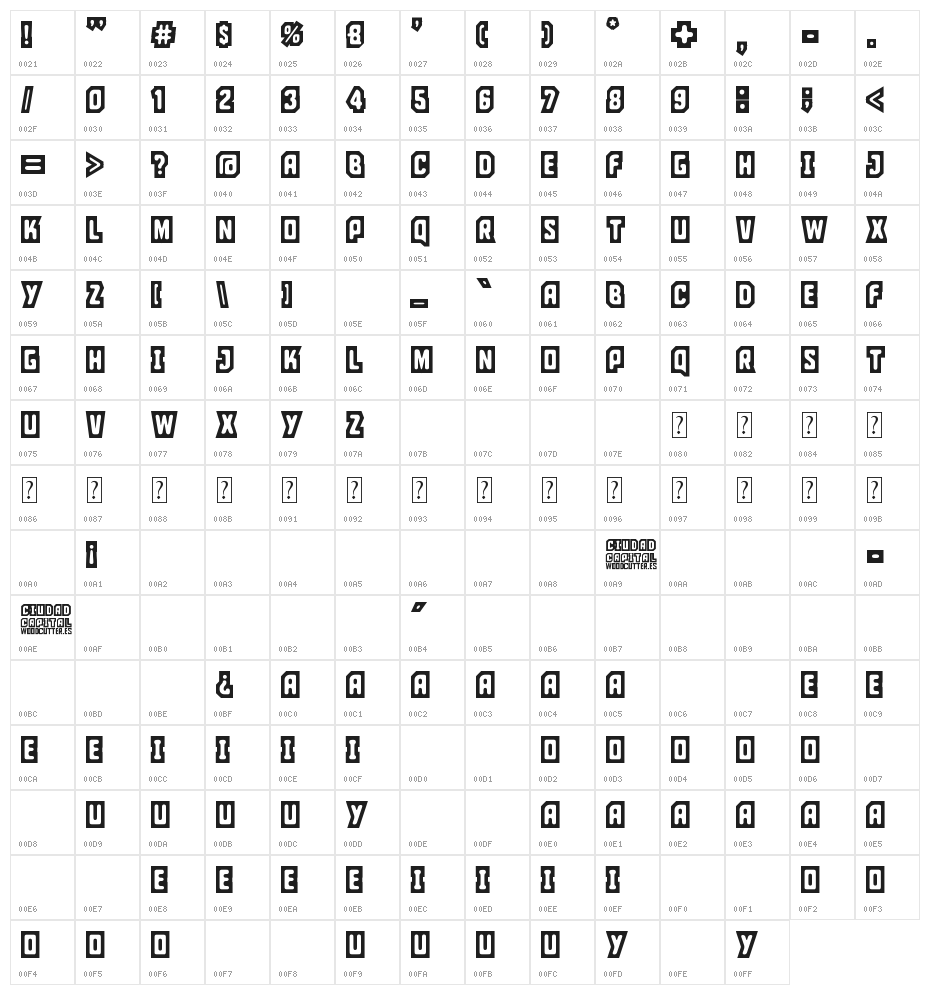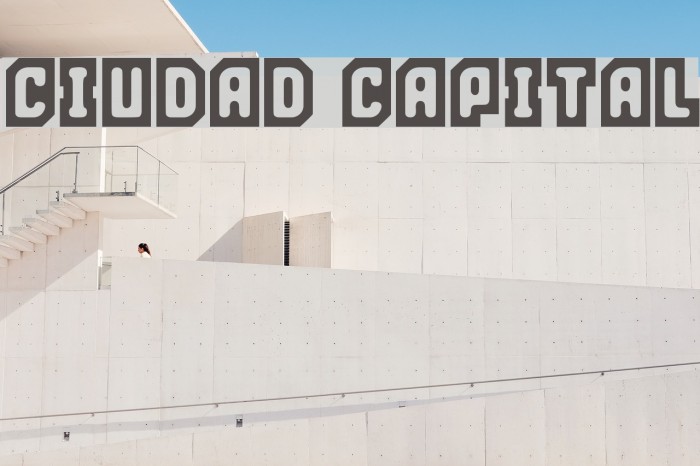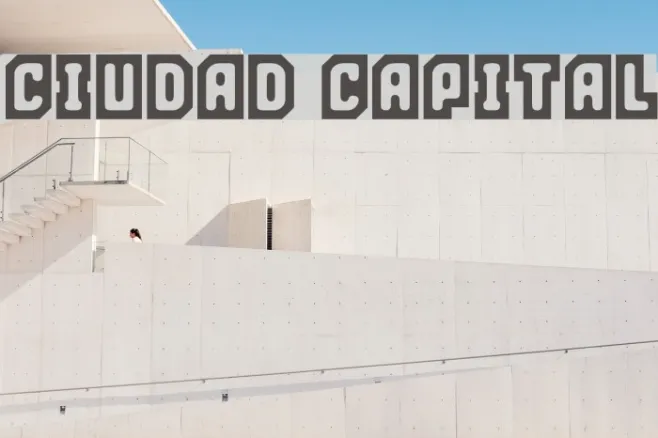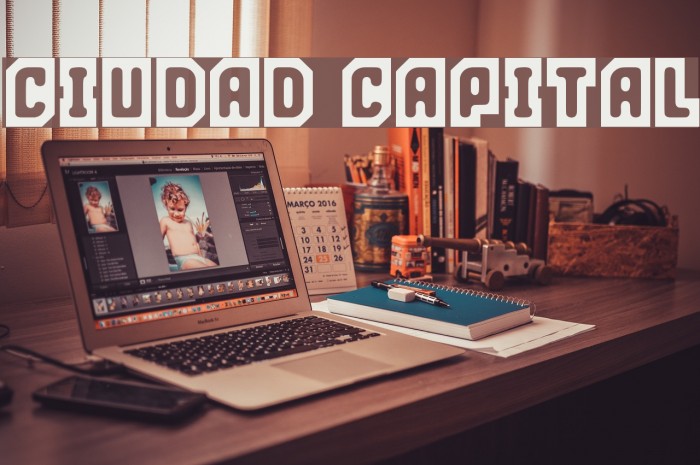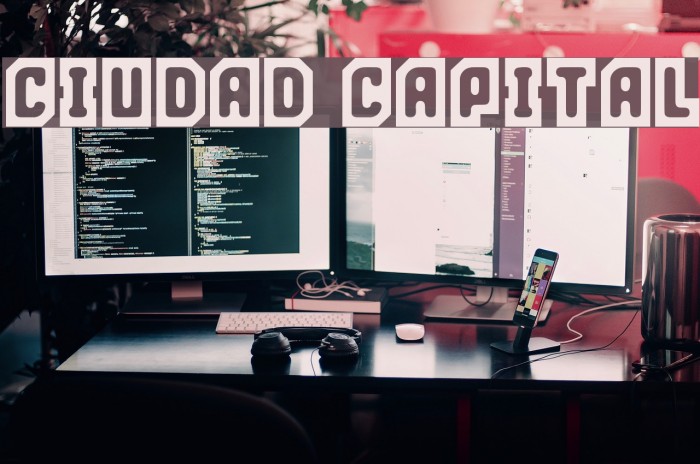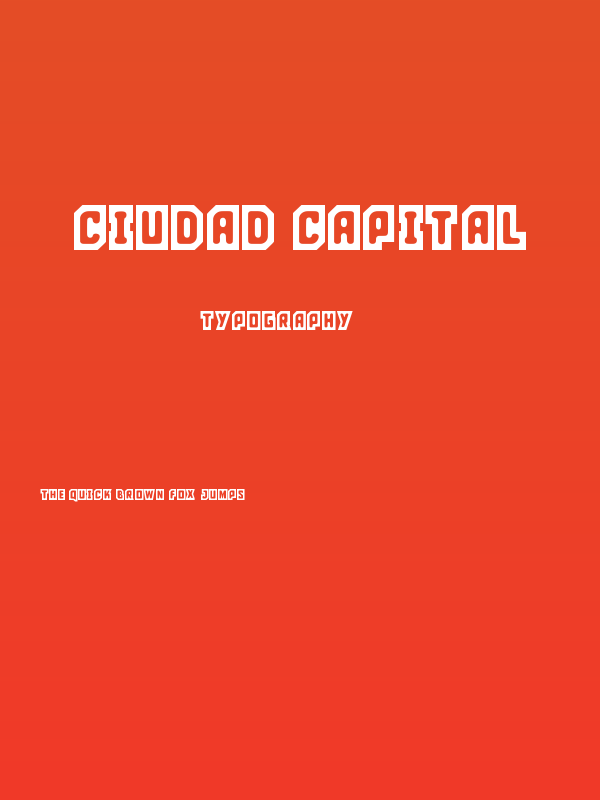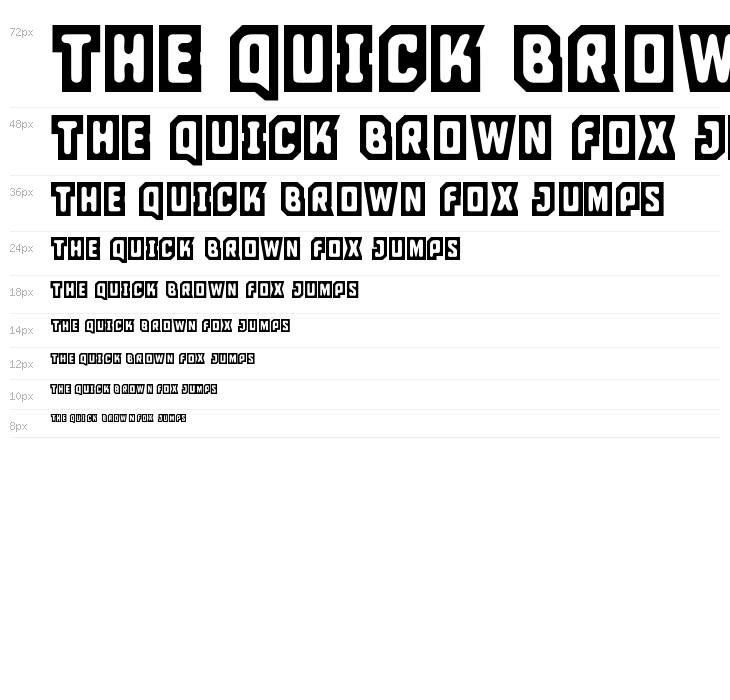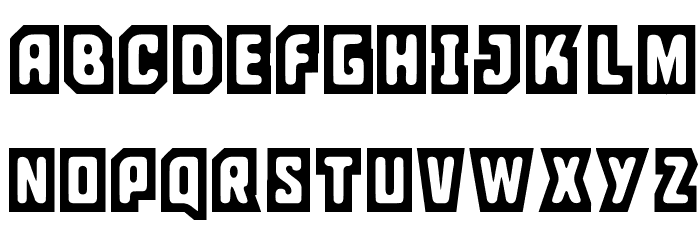
ciudad capital Font
This font features a bold, geometric design with a strong presence. The characters are enclosed within a thick, blocky outline that gives them a three-dimensional effect. The interior of each letter is filled with a contrasting color, creating a striking visual impact. The style is reminiscent of urban and industrial themes, making it suitable for projects that require a modern and edgy look. The font includes a full set of uppercase letters, numbers, and a variety of special characters, ensuring versatility in use.
Bold, geometric font with a strong, three-dimensional effect.
• Proposed Projects: Ideal for posters, signage, branding, and any project needing a modern, urban aesthetic.